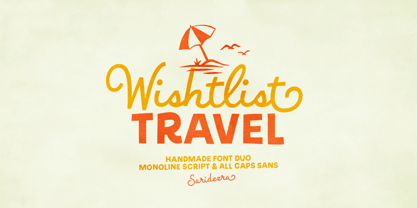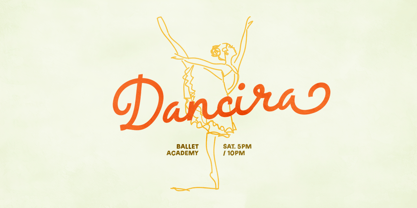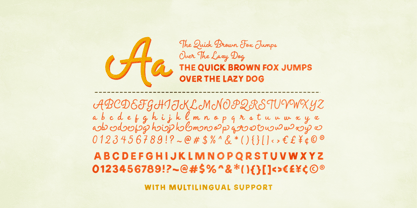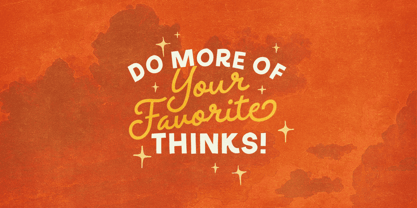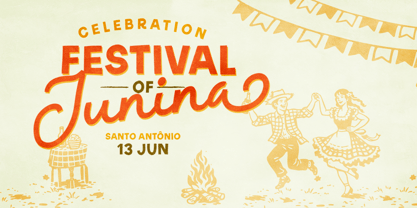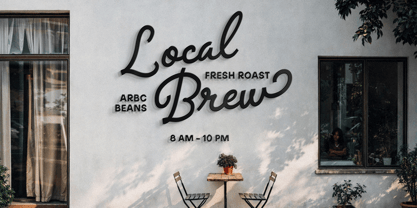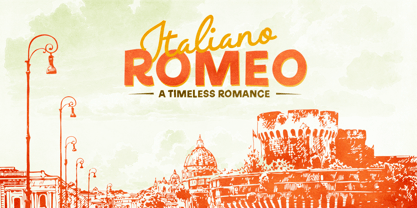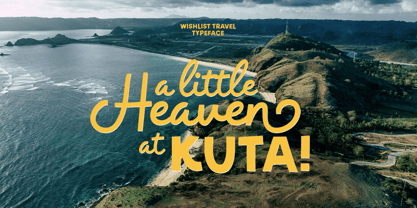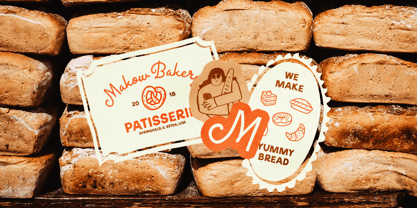
Wishlist Travel
Wishlist Travel is a clean handmade font duo contains monoline script and bold sans. With stylish and festive looks, you can use this font for any purposes such as wedding invitation, holiday card, logotype, quote, and branding. The script of this font contains an ending alternates to balance the looks of the uppercase that will make your design even more stunning. This font duo also support multi language.